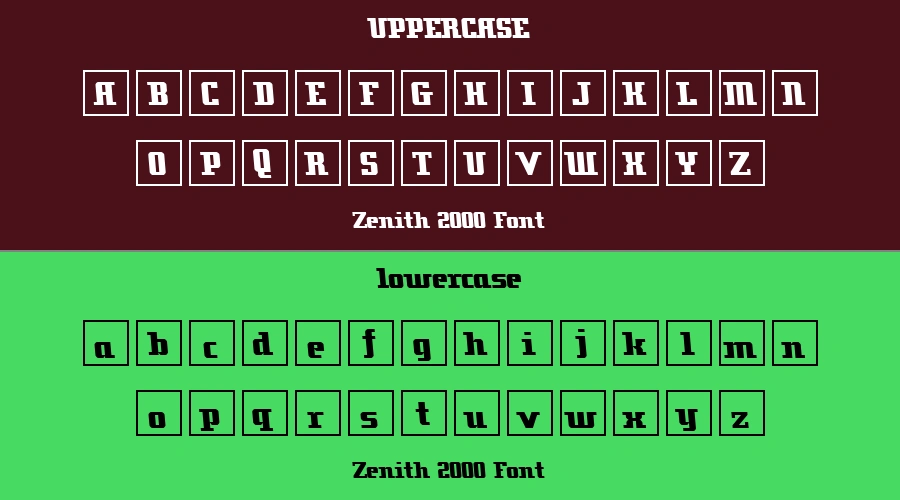
About Zenith 2000 Font
Designed with precision, Zenith 2000 Font merges commanding presence with design integrity in every character. This versatility makes it particularly effective for motion graphics, where consistency and refinement directly impact communication quality. Each letterform demonstrates meticulous craftsmanship.
Technical excellence shines through elements like hairline details and pi characters, enhancing typographic versatility. In heritage publications settings, Zenith 2000 Font proves its worth through superior scanning accuracy. The thoughtful execution of counter shape and cultural resonance ensures professional results.